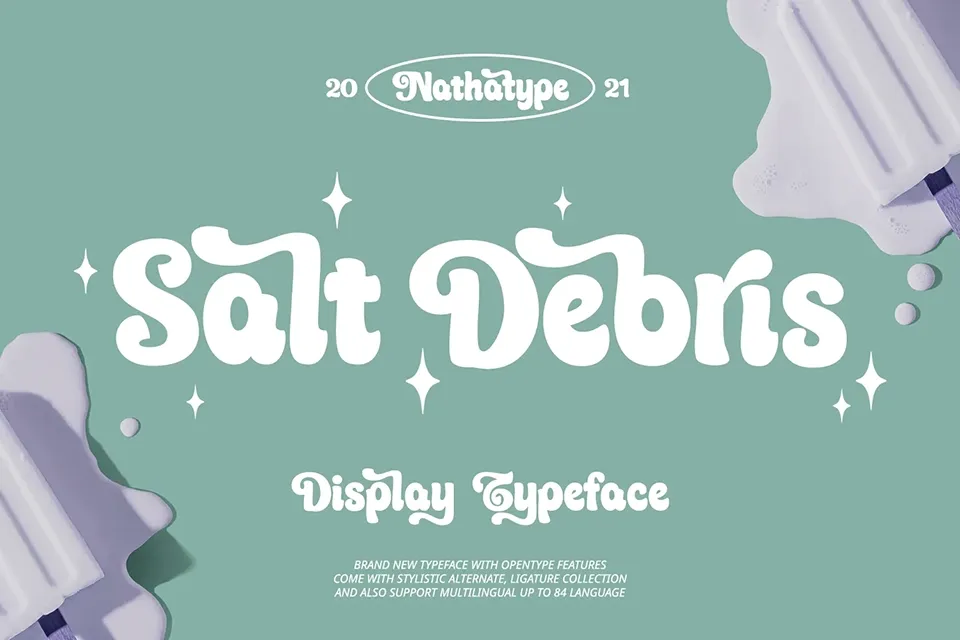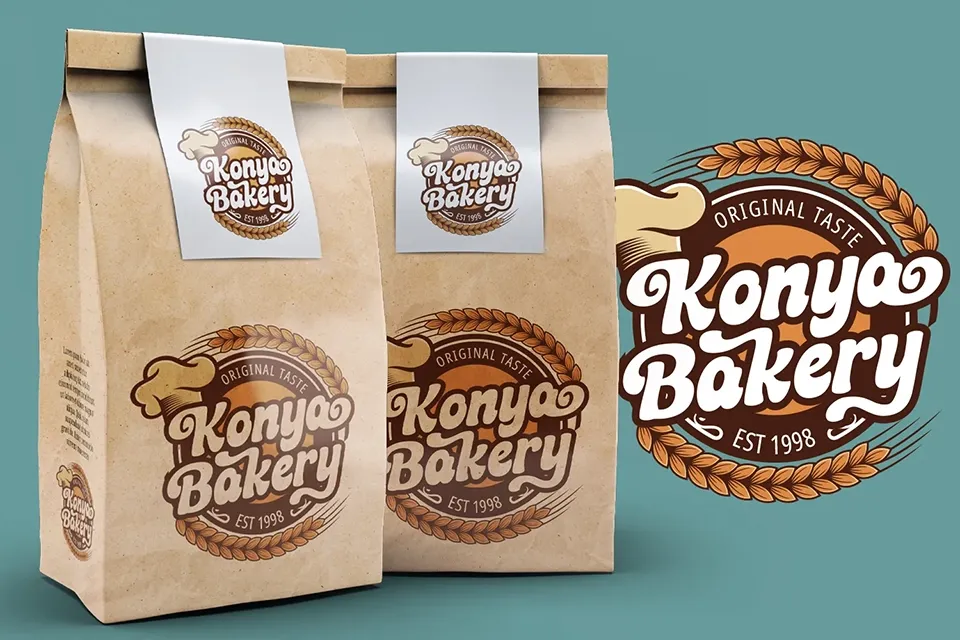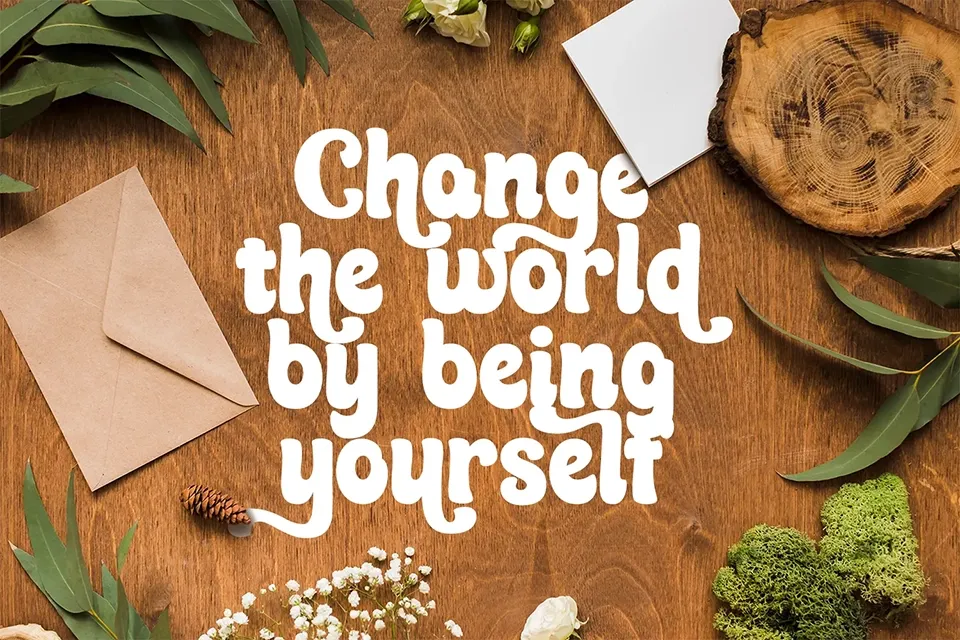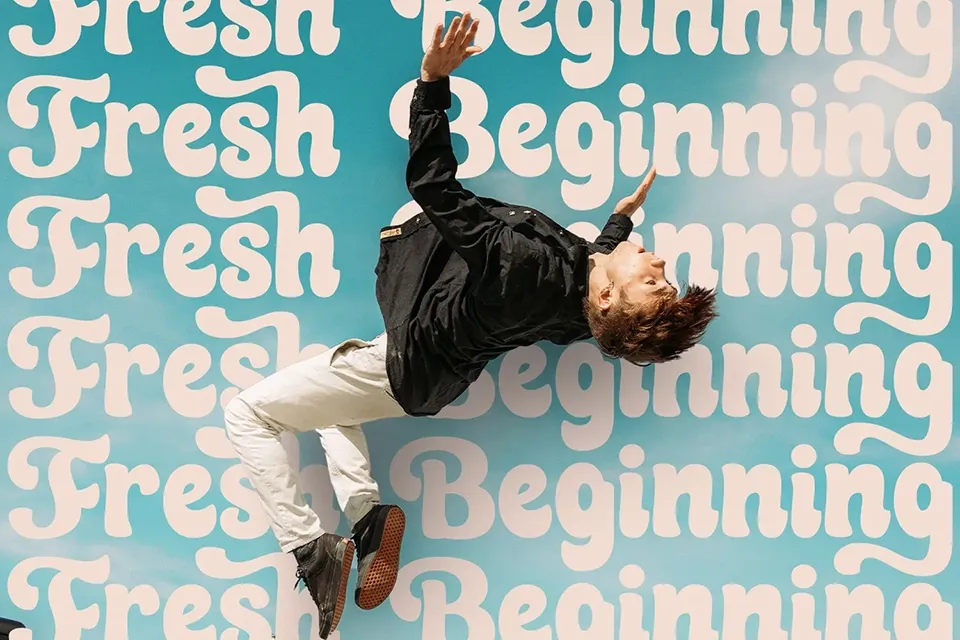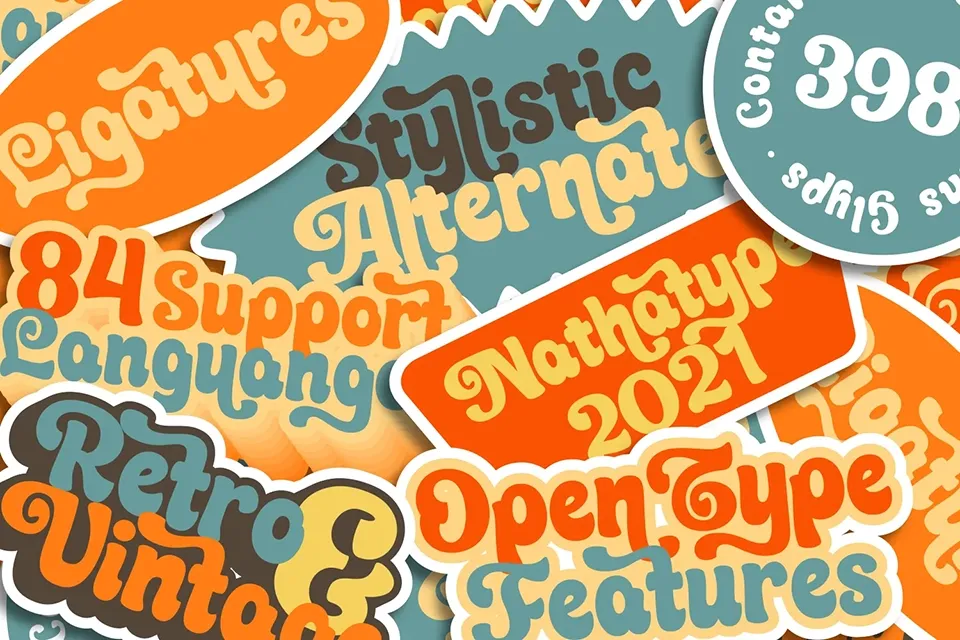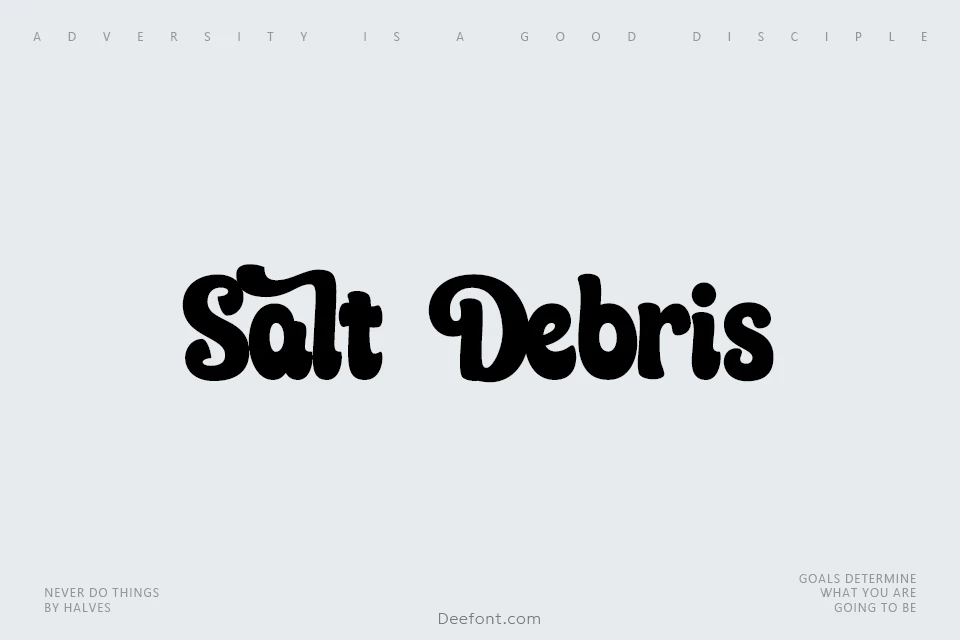
Salt Debris Font
Salt Debris Font is a playful and stylish display typeface designed to bring a touch of elegance, cheerfulness, and creativity to your branding, headlines, and creative projects. With its unique shapes and decorative alternates, this font is perfect for making your designs stand out and capturing attention in any context.